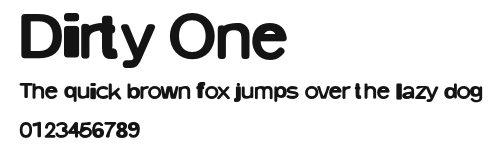
• Font Name: Dirty One
About Dirty One.otf
Dirty One.otf is a modern, elegant sans-serif font designed for ultimate readability and visual harmony. Perfect for branding, headlines, web design, and print materials.